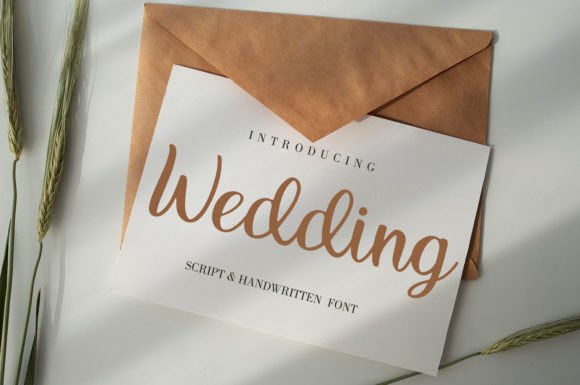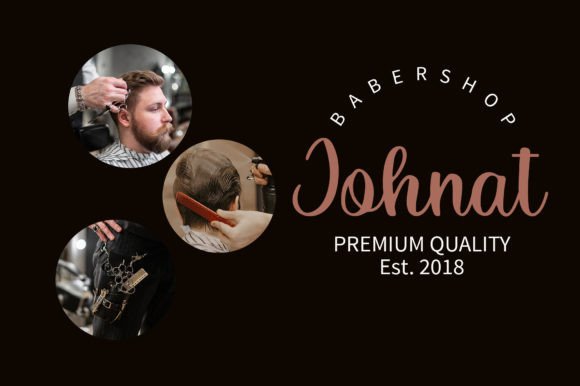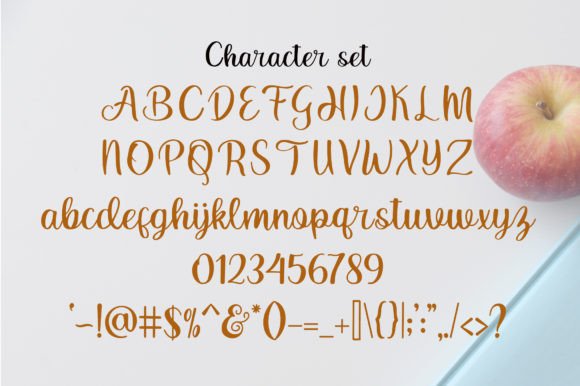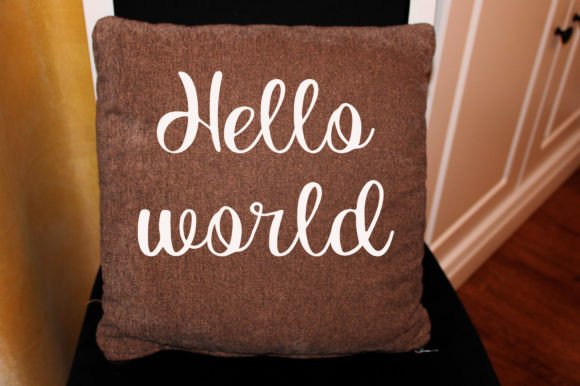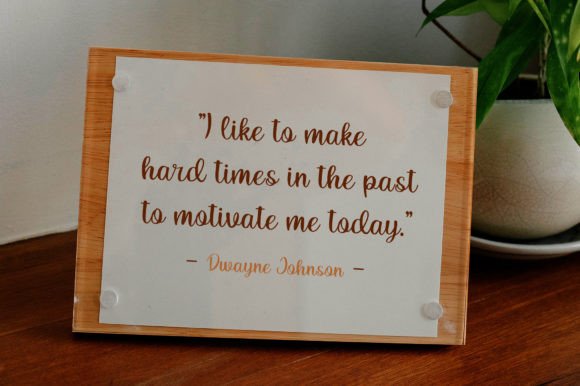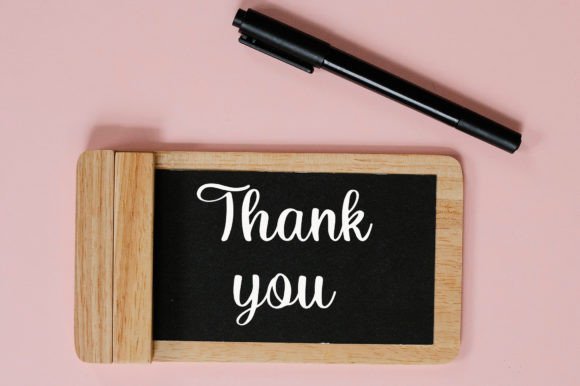
Weddding Font
About Weddding Font
“Wedding” is an exquisite script font meticulously crafted with precision, ensuring that every curve and letter spacing is thoughtfully considered to produce a high-quality typeface. This font is a perfect choice for a wide range of creative projects, including wedding invitations, t-shirt printing, branding, and beyond.
The defining feature of “Wedding” is its elegant and timeless script style. Each letter flows seamlessly, exuding sophistication and grace. Whether you’re designing wedding invitations for a luxurious celebration or creating t-shirts that convey elegance, this font offers the versatility to bring your creative visions to life.
For couples planning their wedding, “Wedding” is an ideal font to capture the essence of romance and celebration. Its graceful script adds a touch of elegance and charm to your invitation designs, making them perfect for couples looking to convey the beauty and significance of their special day.
In the realm of t-shirt printing, “Wedding” can enhance your designs, adding a sense of refinement and uniqueness. Whether you’re creating formal attire, personalized apparel, or merchandise for weddings and events, this font’s classic script lends an air of sophistication that elevates your products.
For branding and logo design, “Wedding” provides a distinctive and memorable choice. The font’s timeless and graceful lines can be harnessed to create logos that leave a lasting mark on your audience. Whether you’re establishing a new brand or giving an existing one a refined look, this font adds a touch of sophistication and quality.
In conclusion, “Wedding” transcends being just a font; it is a tool for creative expression and storytelling. Its meticulous design, elegant script, and adaptability make it a versatile choice for a wide array of projects. Whether you’re working on wedding invitations, t-shirt designs, or branding materials, this font has the potential to transform your ideas into captivating visual experiences, leaving a memorable impression on your audience. Embrace “Wedding” and watch your projects come to life with style, quality, and elegance.